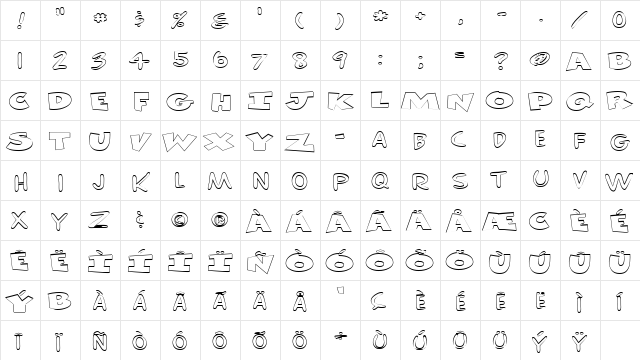
FZ UNIQUE 30 HOLLOW EX Normal
Design Context for FZ UNIQUE 30 HOLLOW EX Typeface
FZ UNIQUE 30 HOLLOW EX is a composed and adaptable typeface that performs quietly and consistently across a wide range of design contexts.